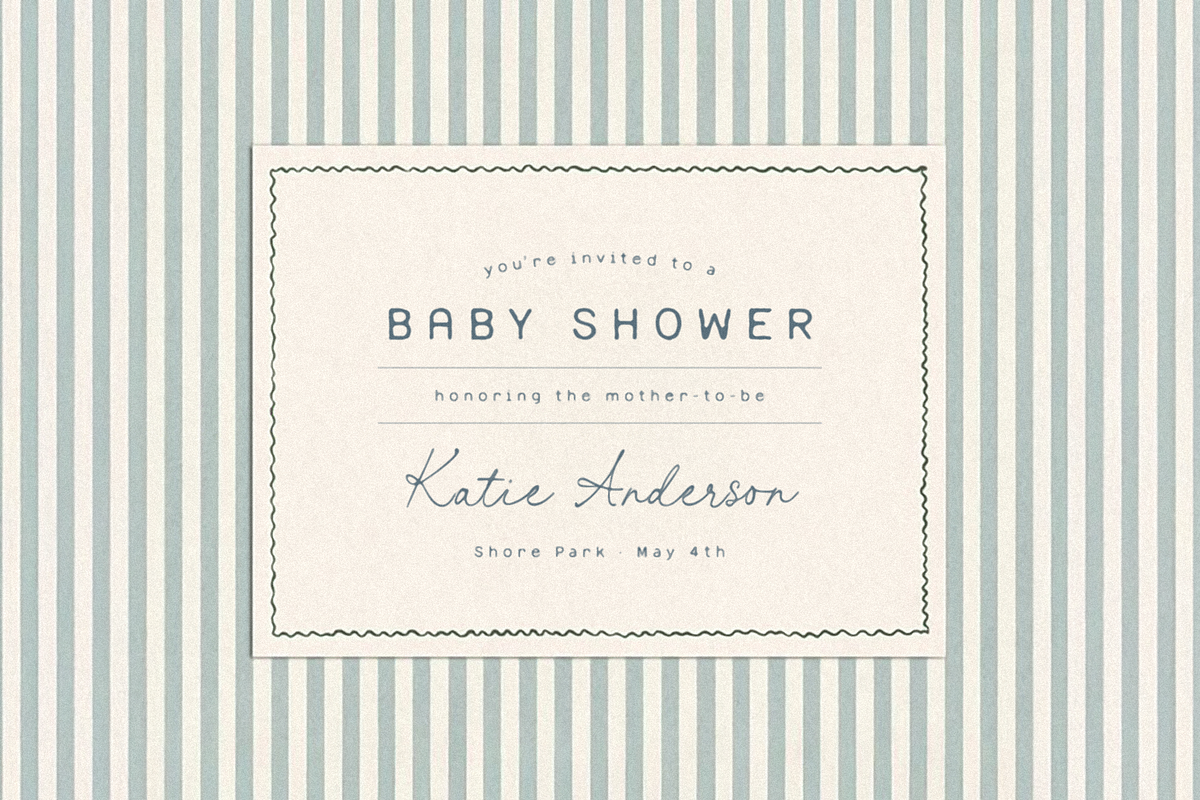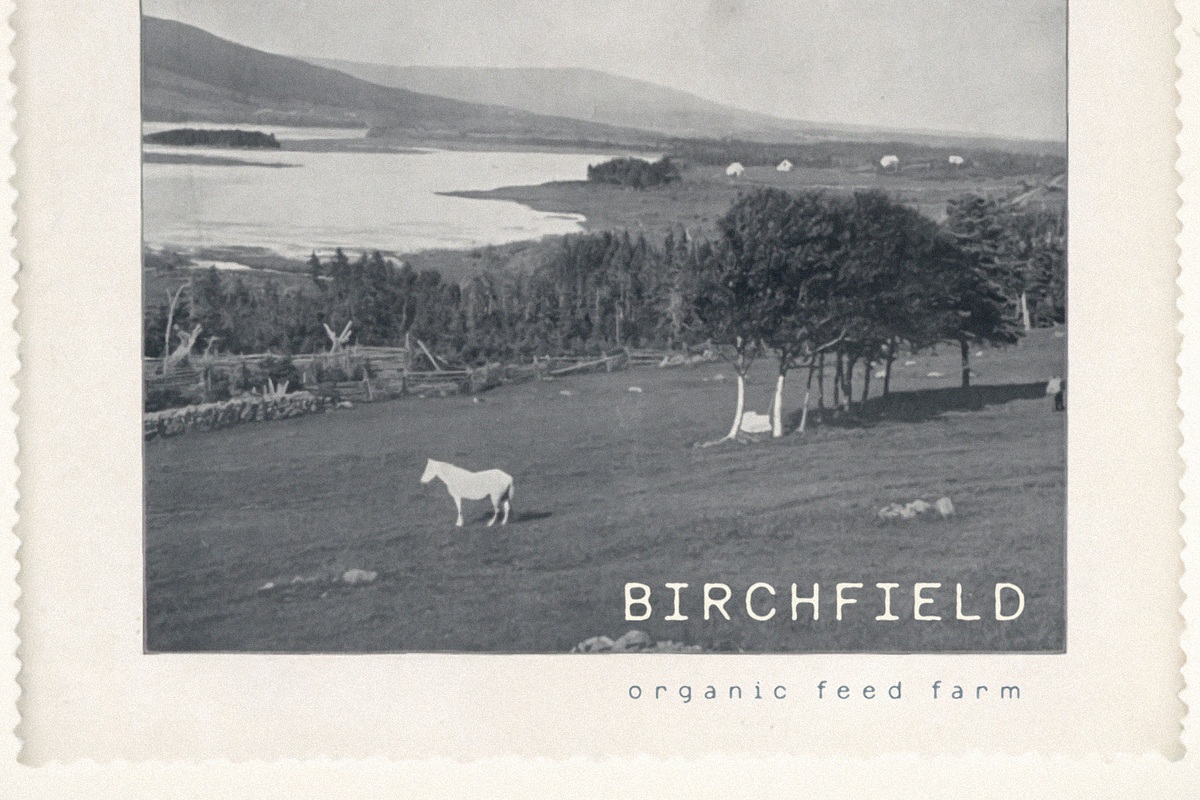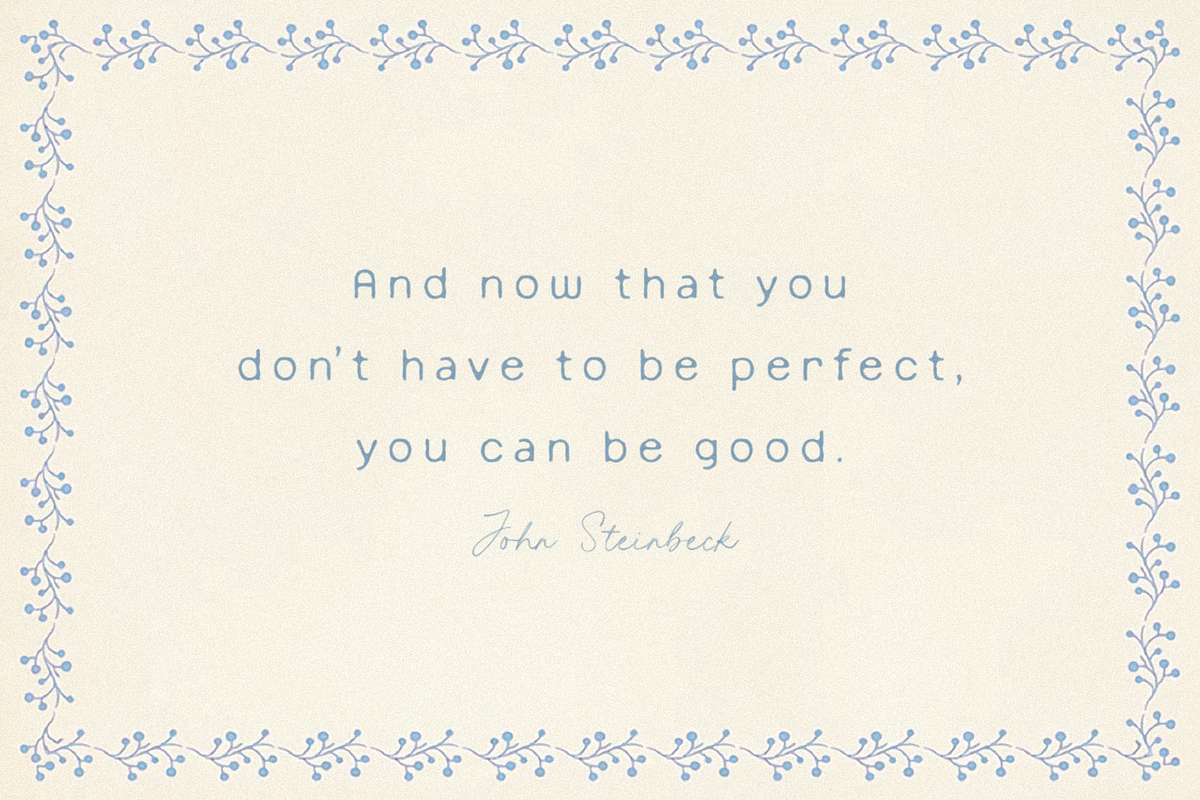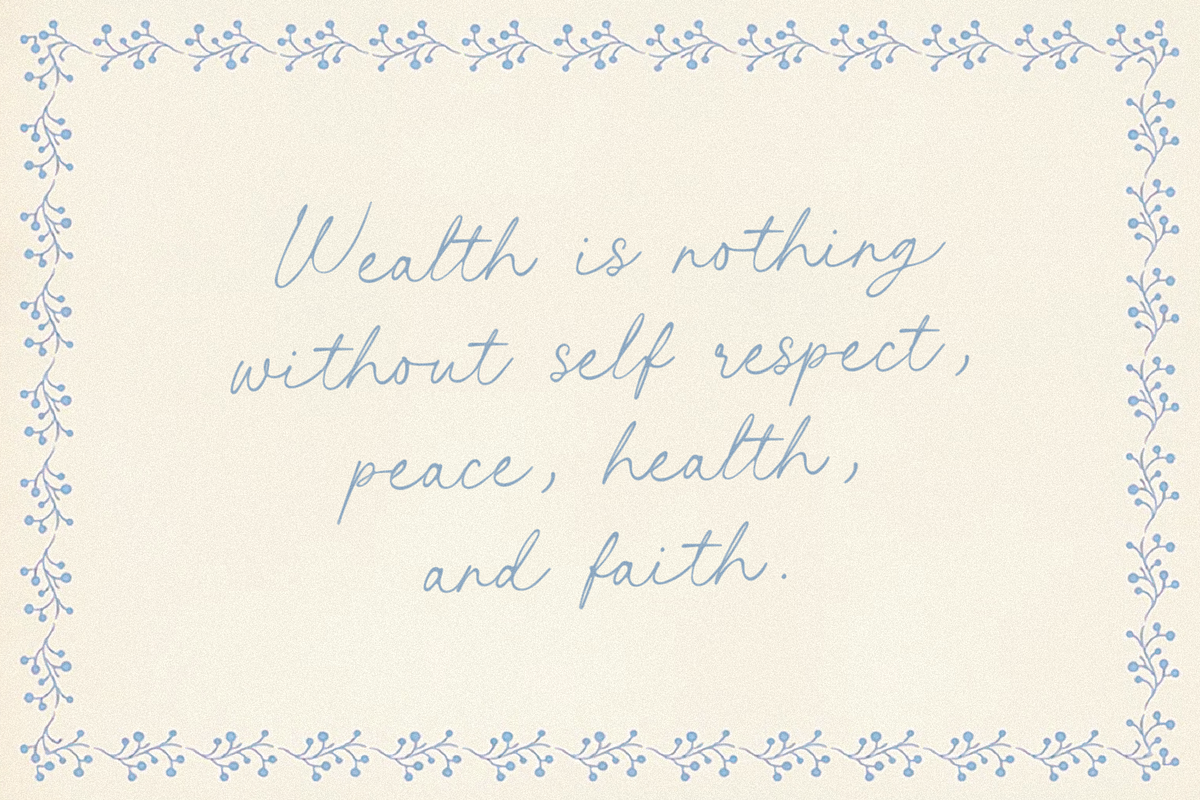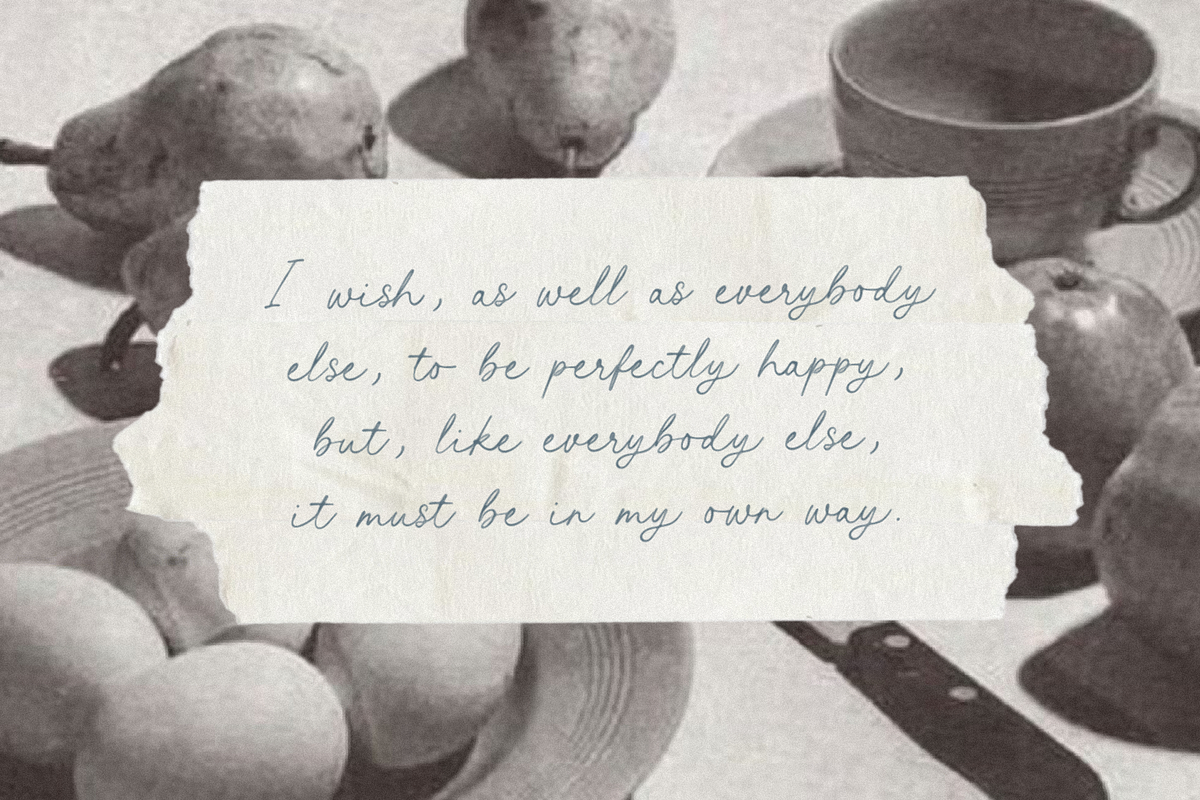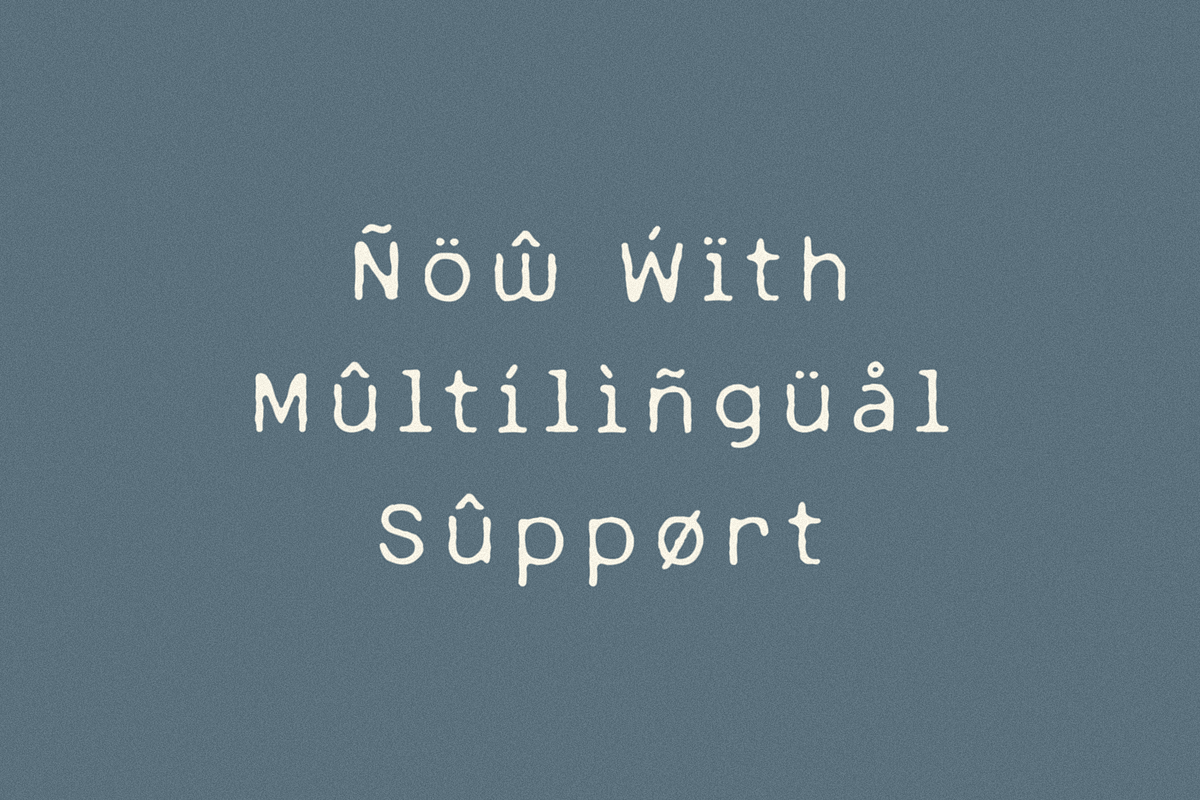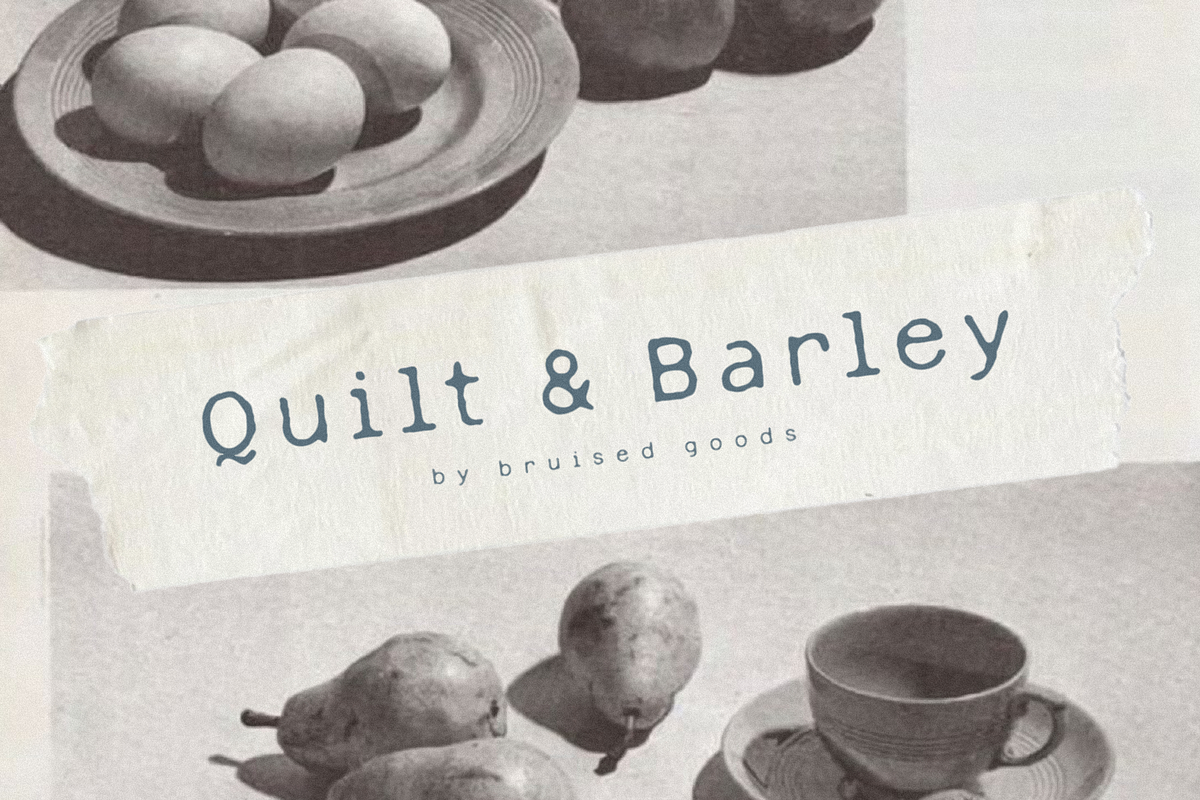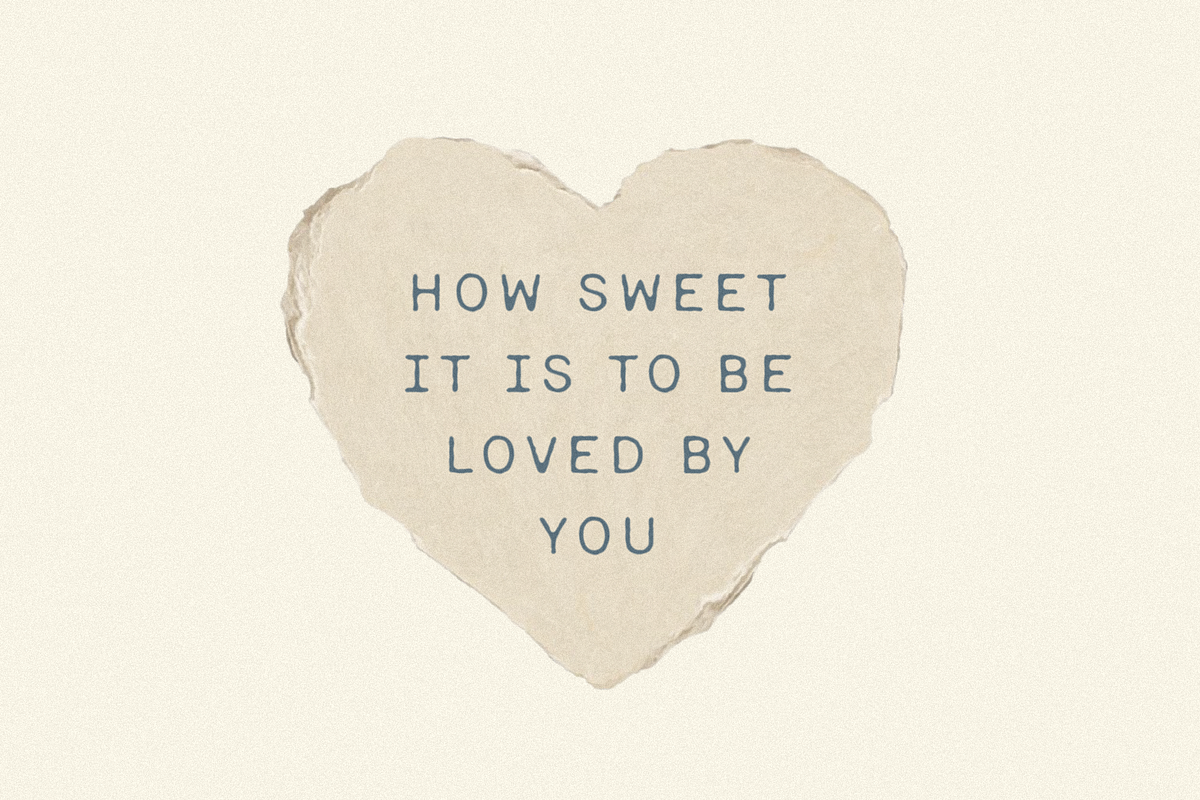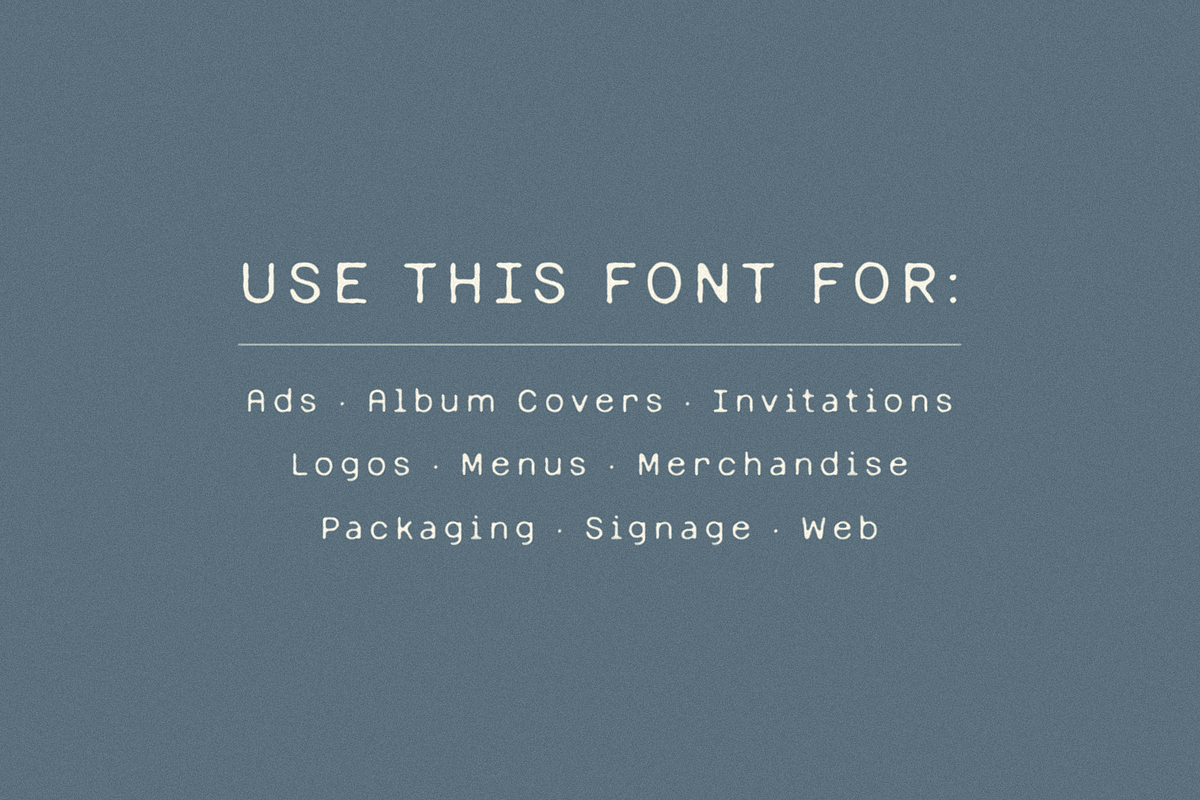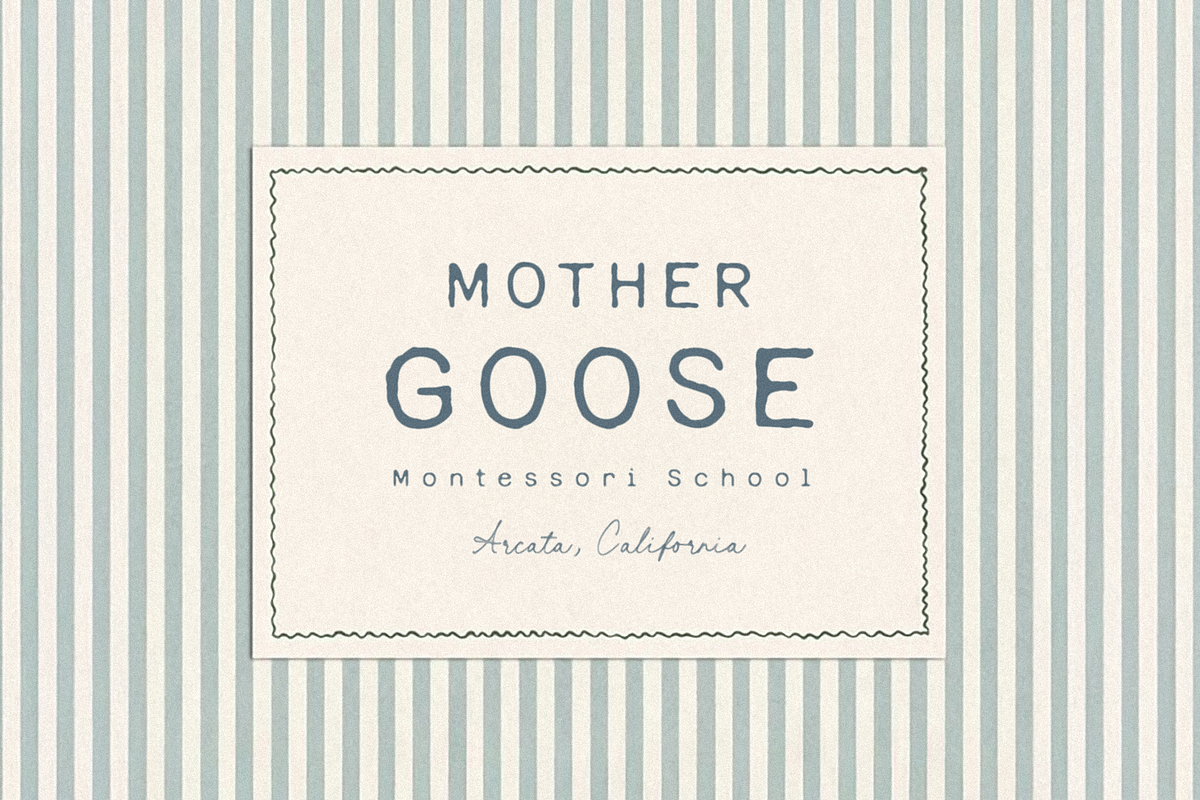
Quilt & Barley
QUILT & BARLEY – A vintage farmhouse font collection. Handcrafted by Bruised Goods.
USE THESE FONTS FOR: ads, album covers, apparel, cards, flyers, invitations, logos, menus, merchandise, packaging, signage, web, and more.
- Language Support: Danish, English, French, German, Irish, Italian, Portuguese, Spanish, Swedish, and Swiss German.